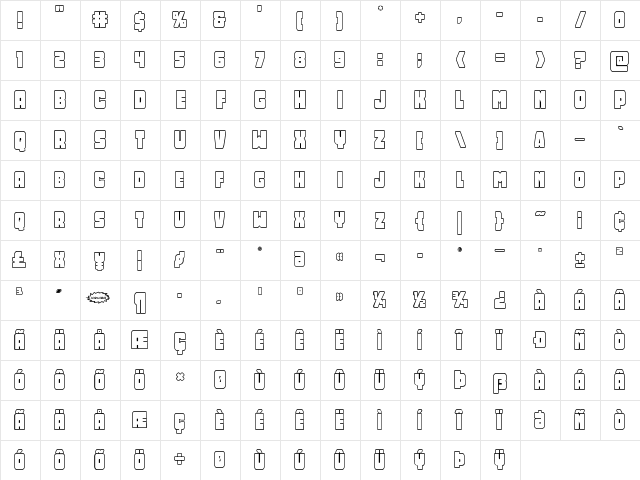
Opus Mundi Outline Outline
Design Context for Opus Mundi Outline Typeface
Opus Mundi Outline is built around its visual character rather than neutral utility — its distinctive forms are designed to make an impression at display sizes.
Font Pairing: Pair with a clean neutral sans-serif for body copy to let Opus Mundi Outline's character lead without overwhelming the composition.
Pro Tip: Treat Opus Mundi Outline as the centrepiece of your typographic hierarchy. One strong heading set in a decorative face can carry an entire layout.